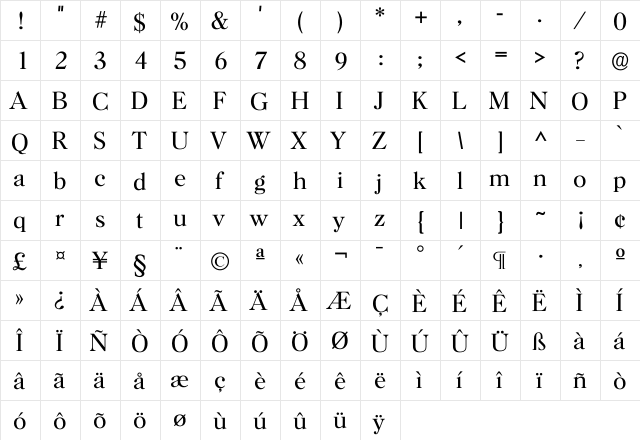
Horsha Light
Design Context for Horsha Typeface
Horsha is a composed and adaptable typeface that performs quietly and consistently across a wide range of design contexts. Its slender proportions lend an understated elegance to any composition.
Pro Tip: Use Horsha in both headline and body roles to test its range before committing to a single application.